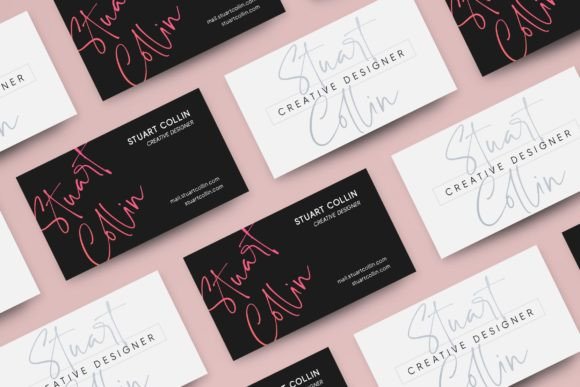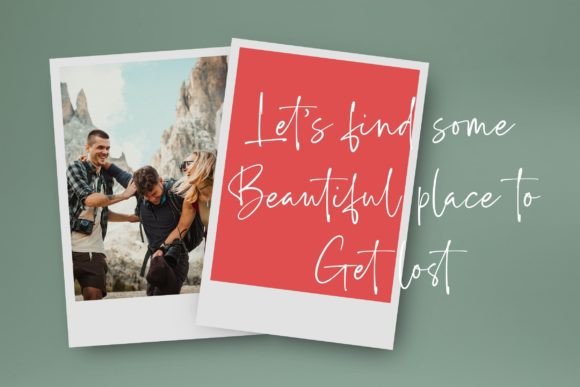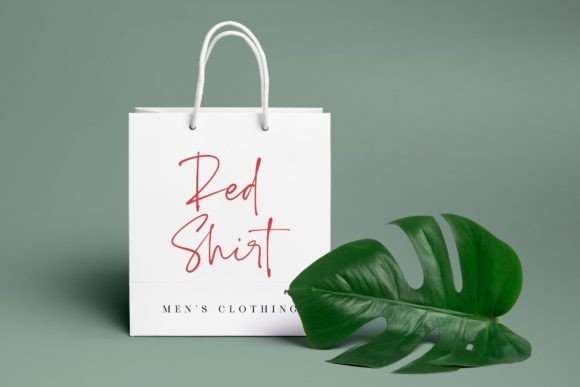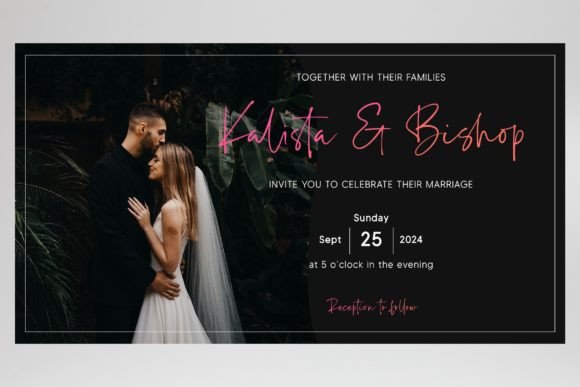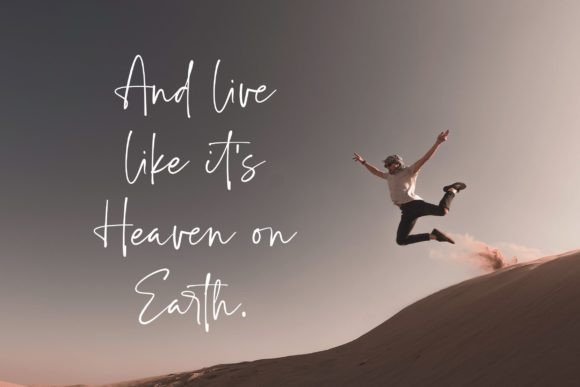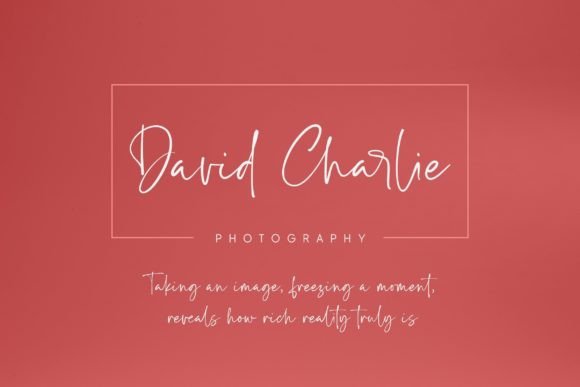
Bring Your Designs to Life with the Bixbite Stone Font
There’s nothing quite like the feeling of creating something from scratch, watching an idea come to life, and seeing the smile on your client’s face when they see their vision realized. For designers, this moment is what drives us to push the boundaries of creativity and innovation. Whether you’re working on a new logo, branding project, or product packaging design, having the right tools can make all the difference.
Enter the Bixbite Stone Font, a beautiful and elegant handwritten font that’s sure to elevate your designs to the next level. With over 160 ligatures included, this font is the perfect choice for creating eye-catching logos, branding, and more. Its unique and beautiful touch will make your design come alive, setting you apart from the competition and leaving a lasting impression on your audience.
Bixbite Stone Font Key Features
- Font Style: Script, Calligraphy, Decorative
- Unique Characteristics: Hand-drawn, intricate details, and elegant lines make it perfect for wedding invitations, luxury branding, and high-end packaging
Bixbite Stone Font Review
I’ve had the chance to work with Bixbite Stone Font, and here’s my honest review.
- Unique aesthetic: Bixbite Stone Font offers a distinctive and modern look that’s perfect for designers seeking something new and exciting.
- Good for branding: The font’s bold and edgy feel makes it suitable for creating bold, memorable brands.
- Works well with sans-serif fonts: Pairing Bixbite Stone Font with sans-serif fonts creates a nice contrast and adds visual interest to designs.
- May be overwhelming: The font’s boldness can be overwhelming if used excessively, so it’s essential to use it in moderation.
- Limited character set: The font’s character set is not as comprehensive as some other fonts, which may cause issues for designers who need to use special characters.
- Not suitable for body text: Due to its bold and edgy feel, Bixbite Stone Font is better suited for headings and titles rather than body text.
Overall, I think Bixbite Stone Font is a great addition to any designer’s toolkit. While it may have some limitations, its unique aesthetic and modern feel make it a great choice for designers looking to create bold and memorable designs.
Tips for Getting the Most Out of Bixbite Stone Font
Here are some tips for getting the most out of Bixbite Stone Font:
- Use the font in combination with other decorative fonts for a unique look.
- Use the font for titles and headings to add emphasis.
- Pair the font with a clean and simple background
Alternatives to Bixbite Stone Font
Rock Salt
Rock Salt is a modern sans-serif font that resembles Bixbite Stone Font but with a more rugged and textured feel. It is ideal for designs that require a bold, edgy look. Compared to Bixbite Stone Font, Rock Salt has a more aggressive design and a wider range of weights.
Alata
Alata is a modern sans-serif font that is similar to Bixbite Stone Font but with a more refined and sophisticated look. It is suitable for designs that require a clean, elegant aesthetic. Compared to Bixbite Stone Font, Alata has a more streamlined design and a greater number of font styles.
Playfair Display is a luxurious serif font that is often used in high-end designs. While it is quite different from Bixbite Stone Font, it can be used in combination with it to create a unique and sophisticated look. Compared to Bixbite Stone Font, Playfair Display has a more formal and elegant design.
Great Vibes is a modern script font that is similar to Bixbite Stone Font but with a more casual and relaxed feel. It is ideal for designs that require a friendly, approachable look. Compared to Bixbite Stone Font, Great Vibes has a more fluid and cursive design.